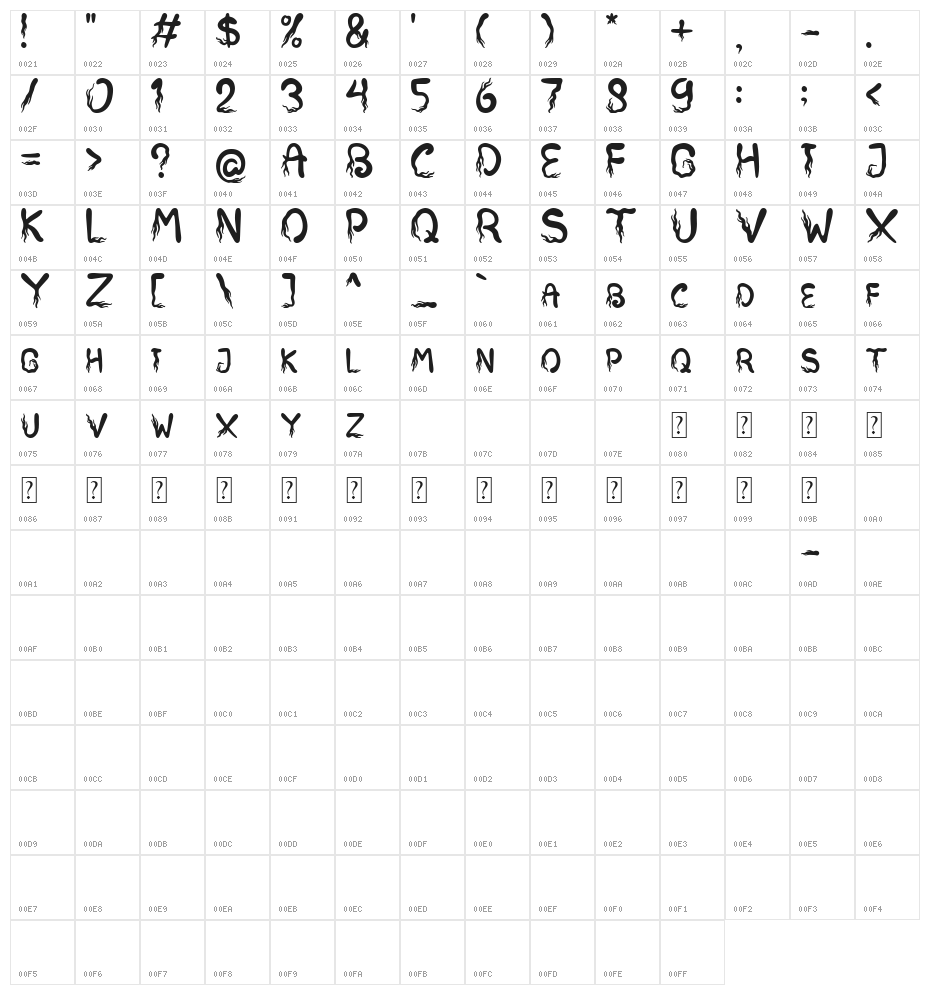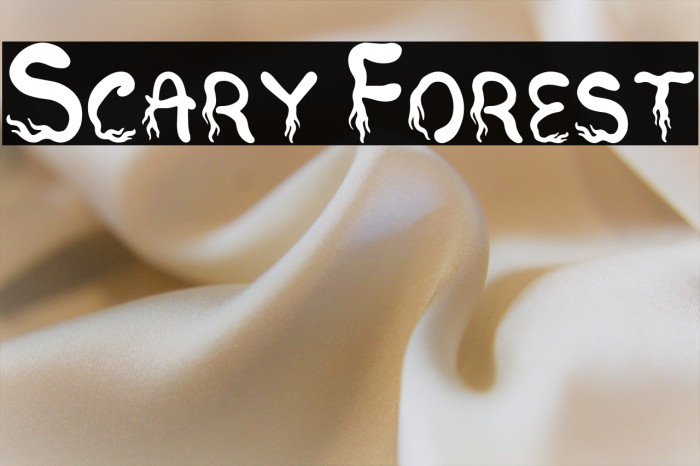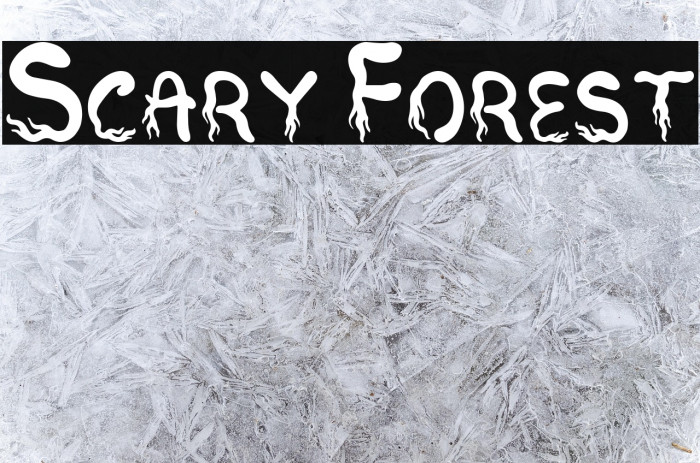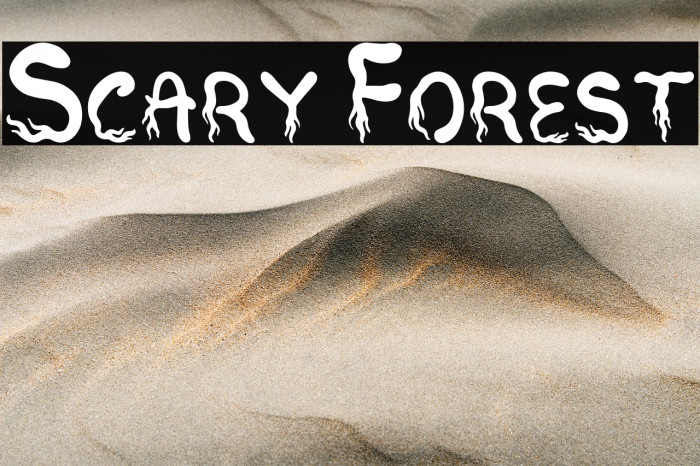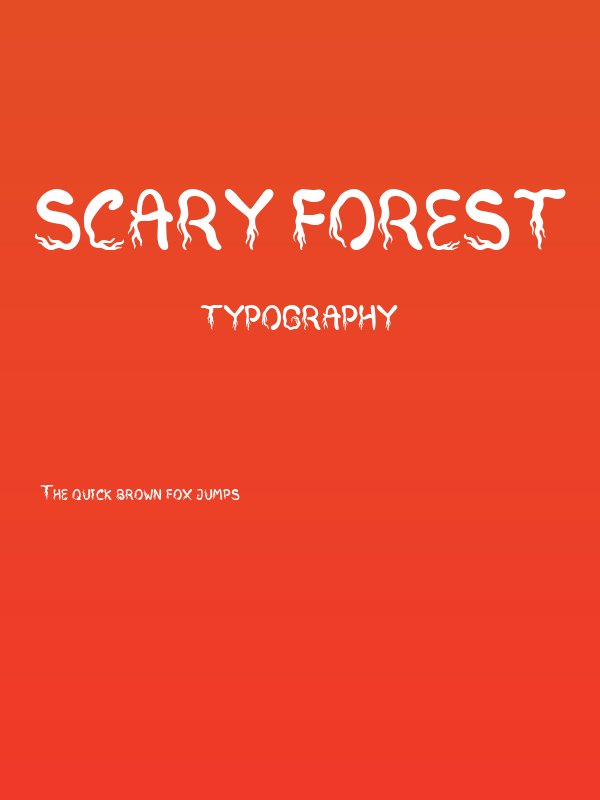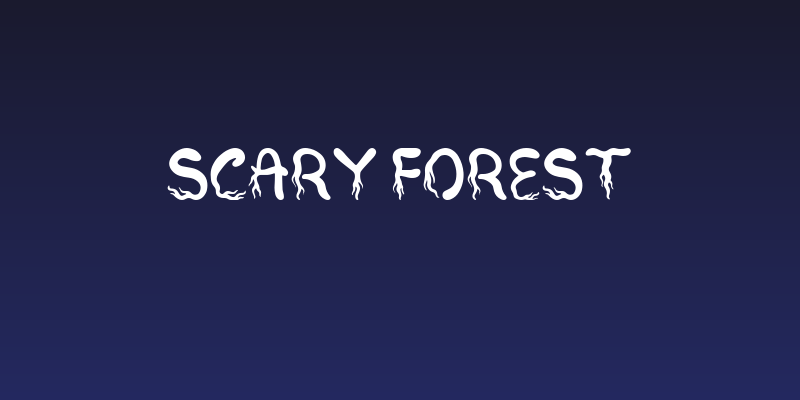
Scary Forest Font
Scary Forest Description
This font features a unique and eerie design, with each character appearing as if it's being overtaken by creeping vines or flames. The letters have a bold, organic flow, with tendrils extending from the main strokes, giving it a haunted, forest-like appearance. The uppercase and lowercase letters maintain a consistent style, enhancing the overall cohesion of the font. Numbers and special characters are equally stylized, ensuring a uniform look across all text elements. This font's distinctive style makes it ideal for projects that require a spooky or mysterious atmosphere.